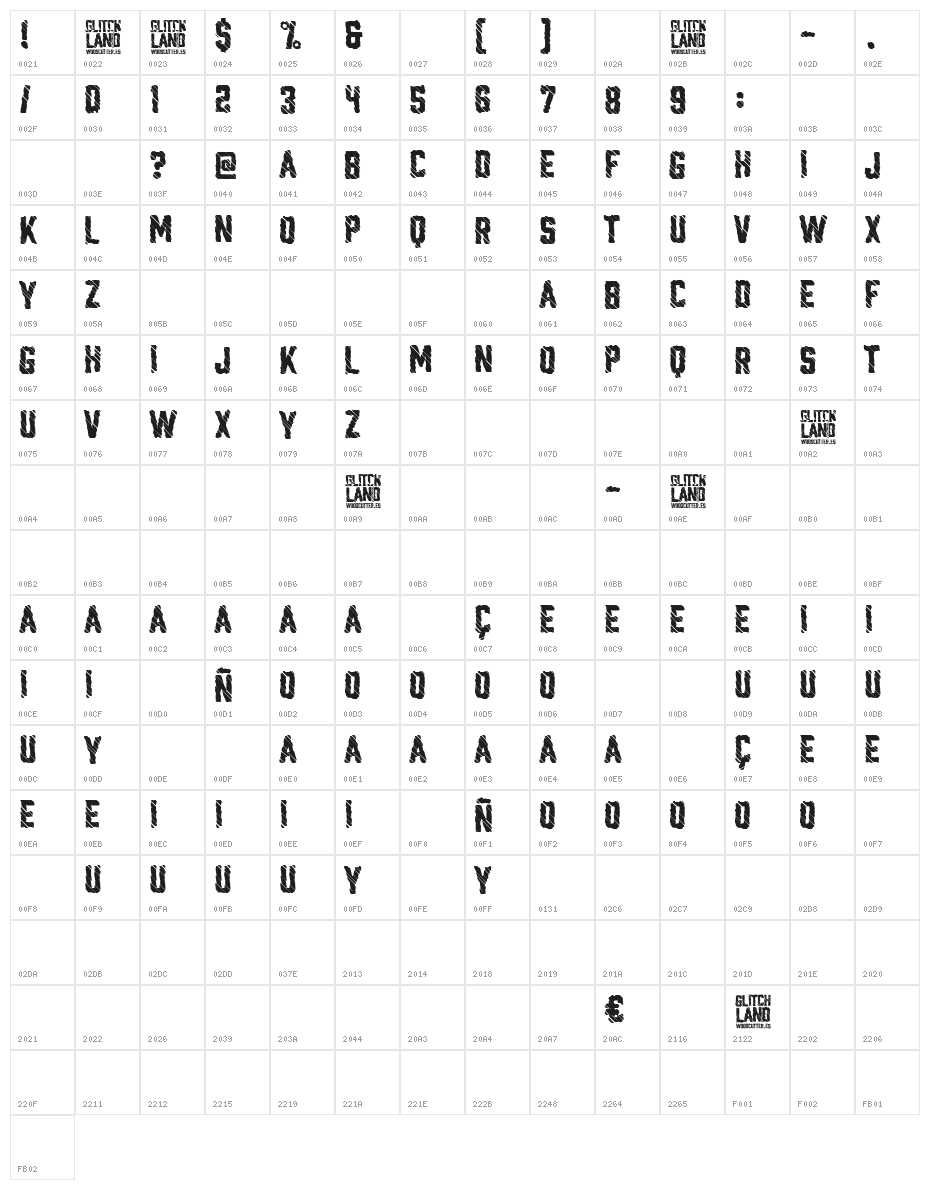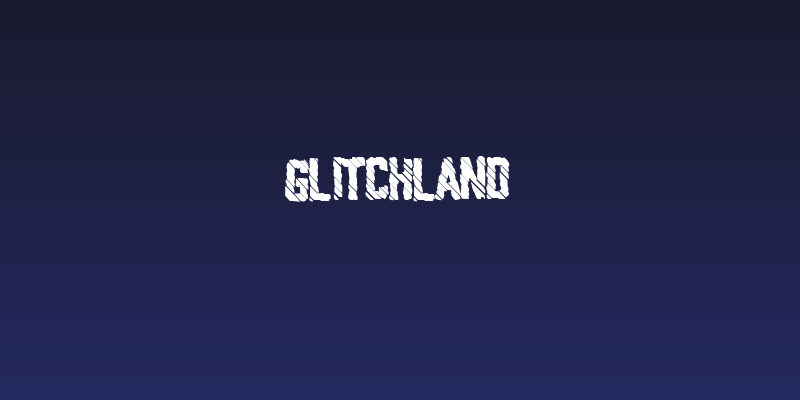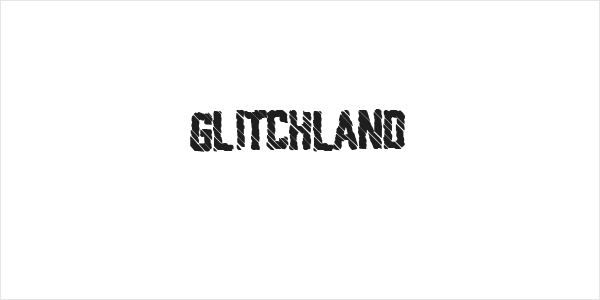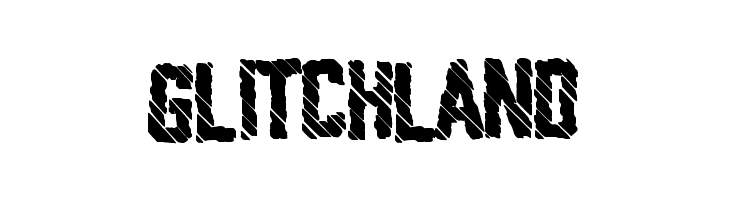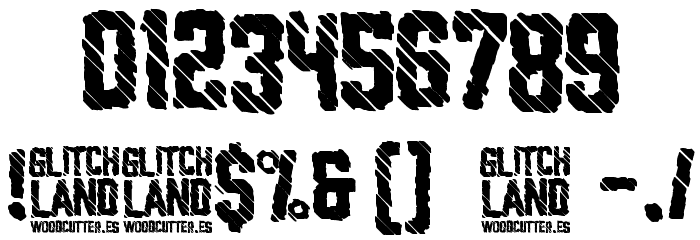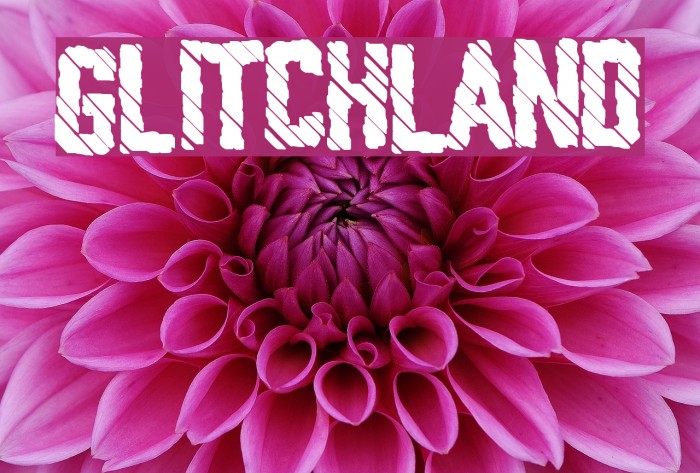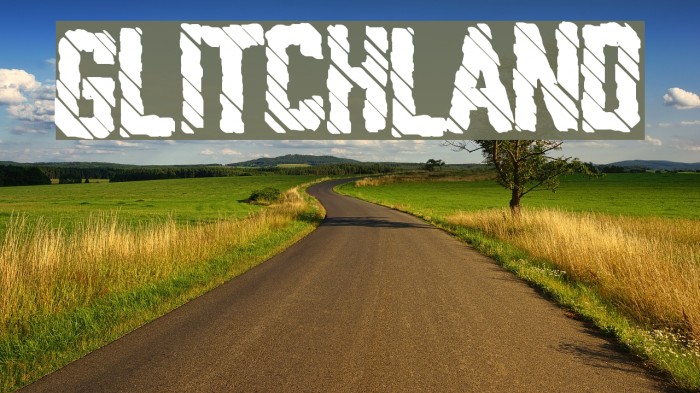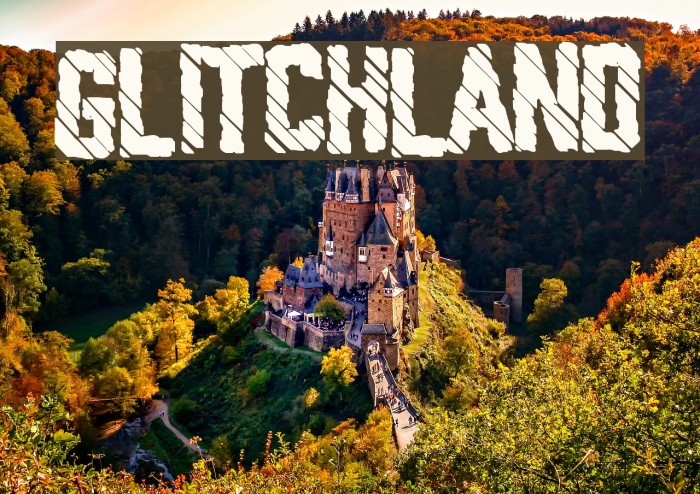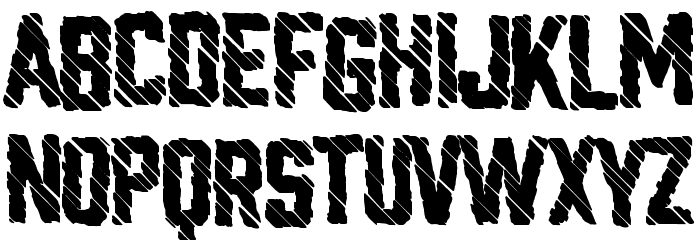
Glitchland Font
Glitchland Description
This font features a bold, distressed style with a digital glitch effect, characterized by irregular edges and a fragmented appearance. The uppercase and lowercase letters, along with numbers and special characters, maintain a consistent, blocky structure that enhances the chaotic aesthetic. The design is reminiscent of digital errors or static, giving it a modern and edgy feel. The characters are tightly spaced, contributing to the dense, impactful look. This font is ideal for projects that require a strong, unconventional visual statement.
GLITCHLAND UPPERCASE
GLITCHLAND LOWERCASE
GLITCHLAND OTHER CHARS
| Proposed Projects | Ideal for digital art, music album covers, video game graphics, and posters that require a modern, edgy aesthetic. |